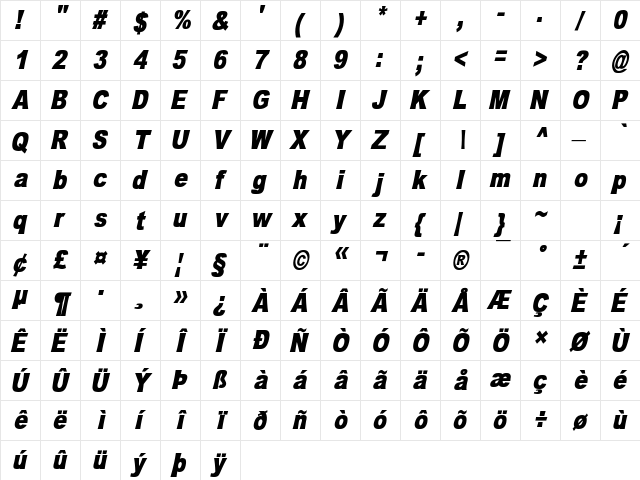
OMNIBLACK Italic
| Foundry | StudioTypo |
| Designer | Mehmet Abac |
Design Context for OMNIBLACK Typeface
OMNIBLACK takes a measured approach to typography — its balanced proportions and neutral character make it a reliable workhorse for both digital and print work. The slanted form adds forward momentum and visual energy.
Pro Tip: Try OMNIBLACK for annotation and caption copy alongside an upright companion — the contrast in angle creates a dynamic but ordered typographic system.